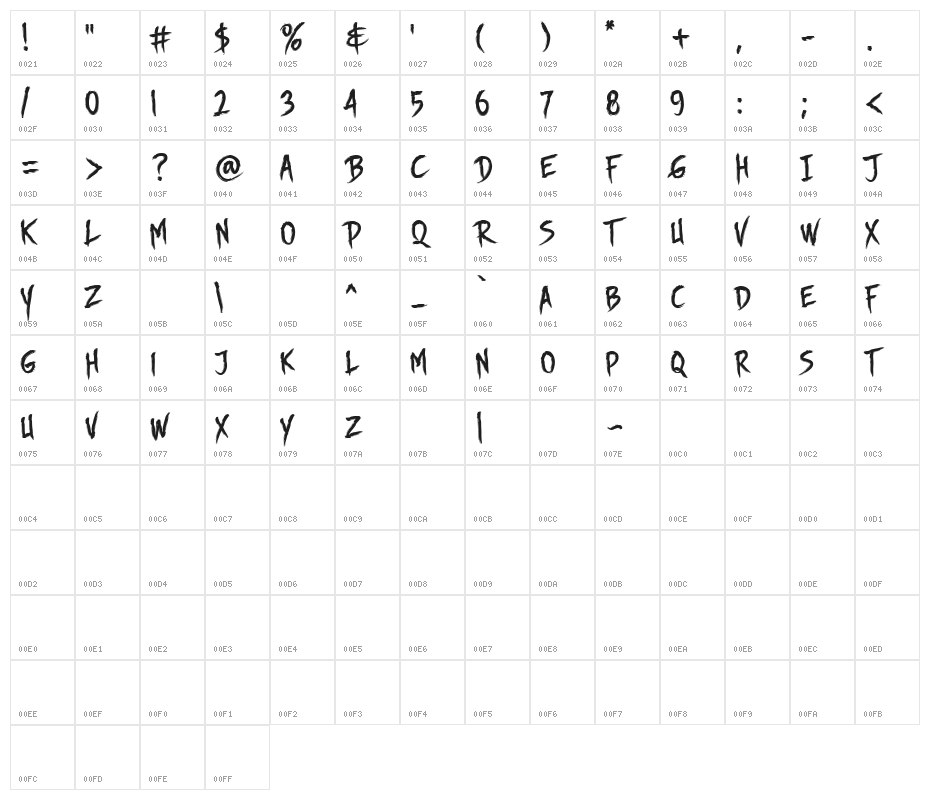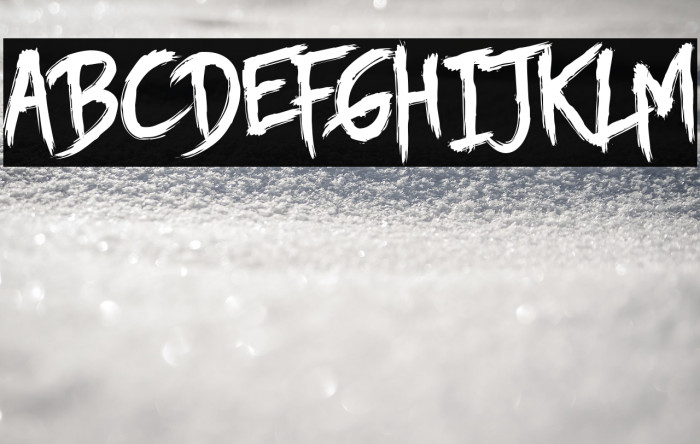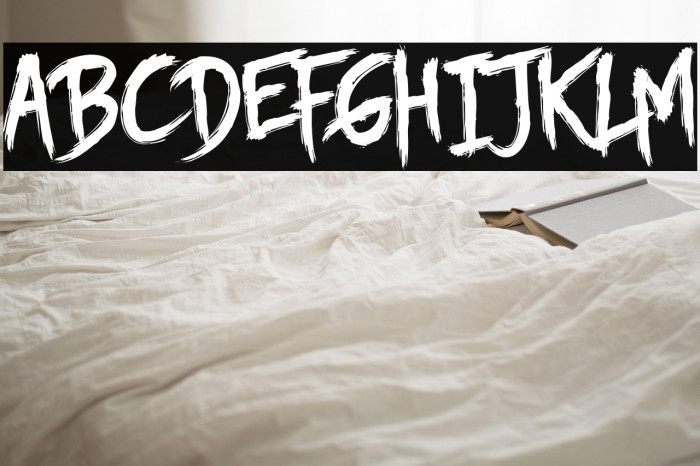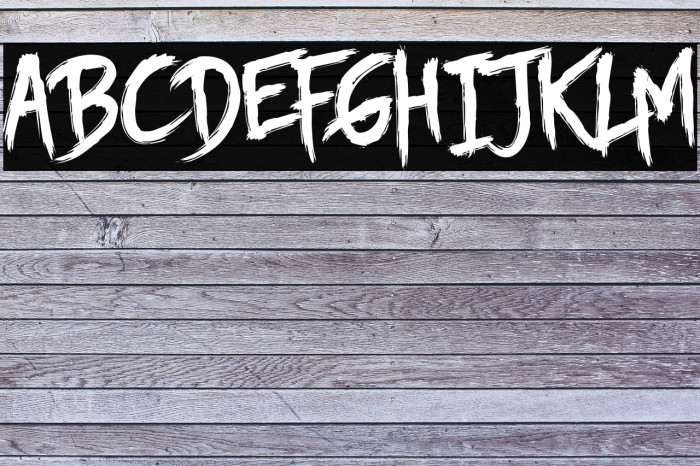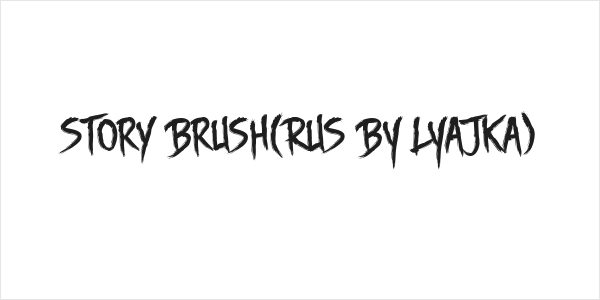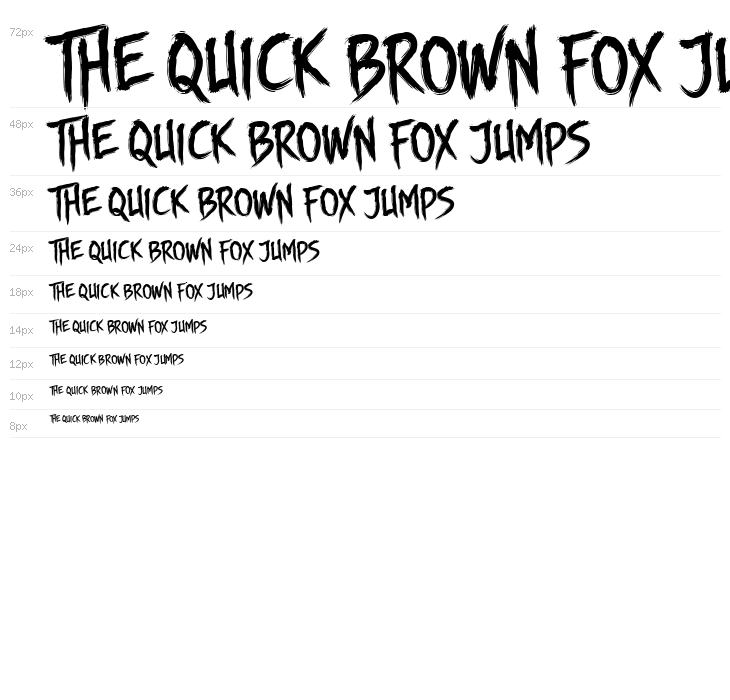
Story Brush(RUS BY LYAJKA) Font
Story Brush(RUS BY LYAJKA) Description
This font features a bold, brush-stroke style that exudes energy and dynamism. The characters are crafted with a rough, hand-painted appearance, giving them a raw and expressive quality. Each letter has a unique, irregular edge, contributing to an overall sense of movement and spontaneity. The uppercase and lowercase letters maintain a consistent style, with the uppercase being slightly more pronounced. Numbers and special characters follow the same aesthetic, ensuring a cohesive look across all elements. This font is perfect for projects that require a bold, artistic touch.
| Overall Style | Modern, Artistic |
| Proposed Projects | Ideal for posters, album covers, graffiti art, and branding that requires a dynamic and artistic flair. |